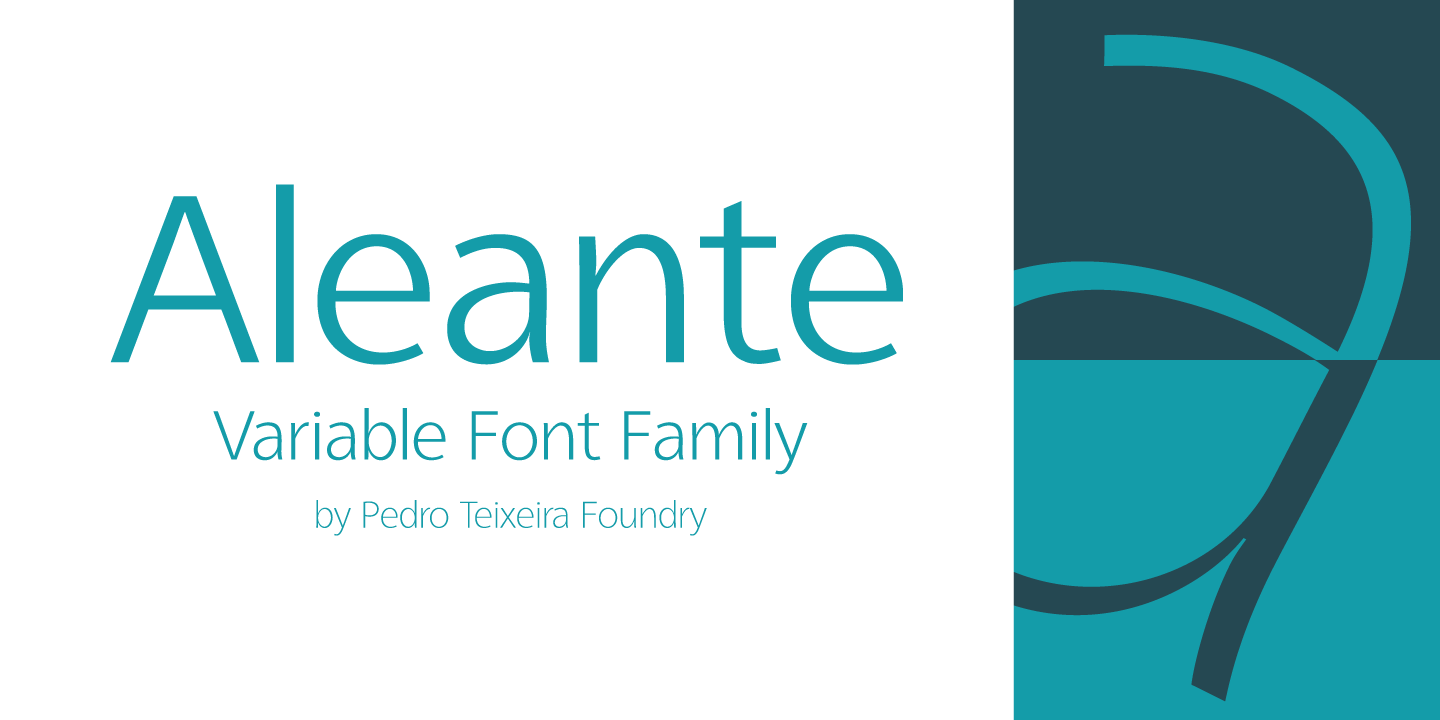
The Aleante Sans Font Free Download is an exceptionally clean and contemporary sans-serif typeface, making it an excellent choice for a wide range of design projects that prioritize clarity, modern aesthetics, and professional versatility. This adaptable font is perfectly suited for corporate branding, web and app user interfaces, editorial layouts for digital and print, packaging design, and advertising campaigns. Imagine it providing the sleek, readable text for a cutting-edge tech company's website, ensuring crystal-clear communication in an infographic, or giving a sophisticated yet approachable tone to a new product's marketing materials. Its straightforward forms and exceptional legibility ensure your message is communicated effectively and efficiently across all platforms.
What makes Aleante Sans Font truly exciting is its remarkable balance between neutrality and a distinct, modern character. It's not just another generic sans-serif; it possesses a subtle elegance and a meticulously crafted structure that allows it to integrate seamlessly into diverse design contexts while maintaining a polished and contemporary presence. Its robust construction ensures it performs beautifully in both large display sizes and small body text, making it an incredibly reliable choice for any project. Designers will appreciate its understated sophistication and how it provides a solid yet stylish foundation for any visual communication, allowing the content to truly shine.
The Aleante Sans Font family typically offers an expansive range of weights and styles, making it exceptionally flexible for building sophisticated typographical hierarchies and nuanced visual expressions. You can often find a comprehensive spectrum of variations, including Thin, Light, Regular, Medium, SemiBold, Bold, ExtraBold, and Black, providing extensive control over visual emphasis and typographic texture. Most comprehensive versions also include corresponding Italic styles, further enhancing its utility for varied design needs, from subtle emphasis to dynamic headlines. These extensive options ensure that the Aleante Sans Font Free Download is an invaluable asset for designers seeking a dependable, high-quality, and aesthetically pleasing typeface for virtually any design challenge.